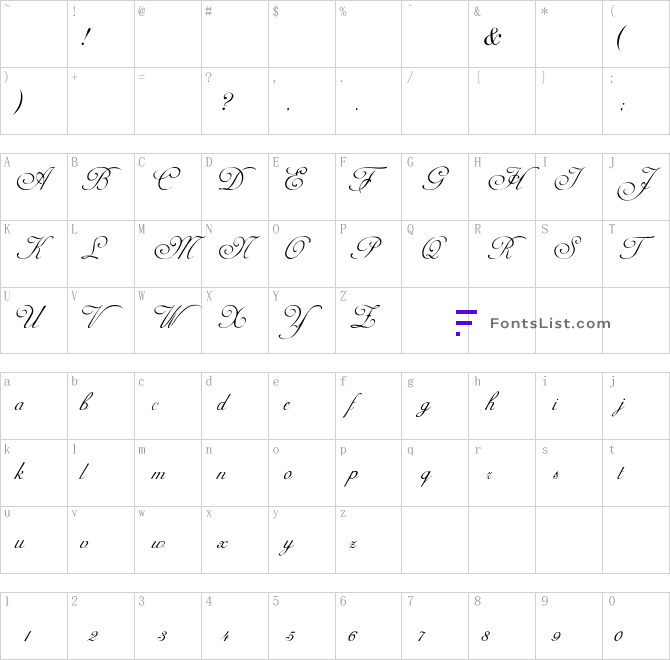
- Font Name:AdineKirnberg-Script
AdineKirnberg-Script-copy-1-.ttf is a very beautiful artistic font, AdineKirnberg-Script-copy-1-.ttf is widely used in the design and printing of various books and pictures,AdineKirnberg-Script-copy-1-.ttf has a strong visual impact,AdineKirnberg-Script-copy-1-.ttf is a commonly used font in newspapers, magazines and books, and is used in posters, e-commerce Poster design, store design, logo design, font design and other fields.AdineKirnberg-Script-copy-1-.